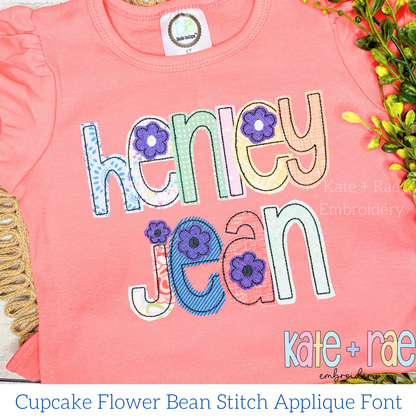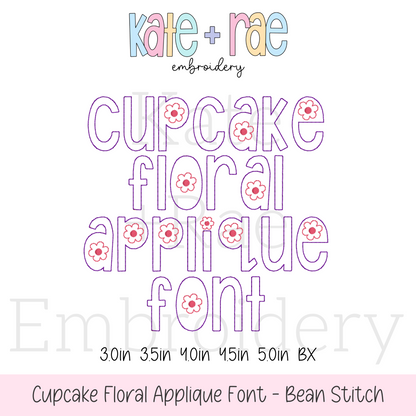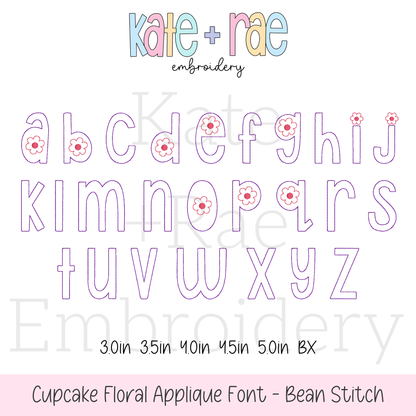
Cupcake Floral Bean Stitch Applique Embroidery Font: The name henley jean in pastel applique letters with purple flowers on a coral shirt
Cupcake Floral Bean Stitch Applique Font
Meet Cupcake Floral, a blooming bean stitch applique font! Stitch names on spring shirts, girls' outfits, and everyday favorites.